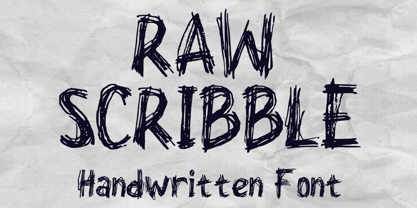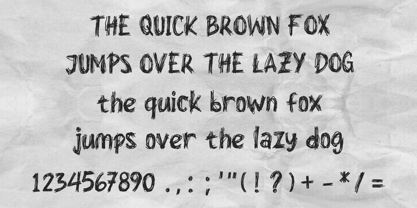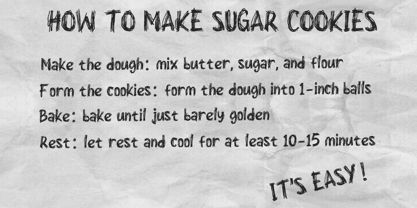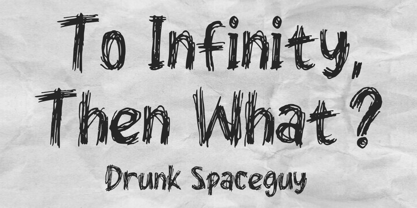
Raw Scribble
by Mvmet
The Raw Scribble Font Family was designed by Gabriel Valentinus and published by Mvmet. Raw Scribble contains 1 styles.
Introducing Raw Scribble, a distinctly organic handwritten font characterized by its spontaneous scribbled texture. Elevate your design portfolio with Raw Scribble's unique style, offering exceptional versatility for a wide range of creative applications. Whether you're crafting eye-catching decal designs, standout t-shirt graphics, memorable logos, captivating book or magazine covers, dynamic comics, or charming cartoon imagery, Raw Scribble adds an extraordinary personality to your projects. Both iterable and individualistic, Raw Scribble enhances your creative expressions with a distinctive edge.
Designers: Gabriel Valentinus
Publisher: Mvmet
Foundry: Mvmet
Design Owner: Mvmet
Mvmet is an Indonesia-based font studio which began making fonts in early 2020. Mvmet strives to make fonts fun and accessible for both the average computer user and professional designers, with original experimental fonts and affordable trend-setting commercial fonts. Mvmet also creates custom fonts for companies who want exclusive rights and a specific design for a typeface. Clients who have used Mvmet’s custom font services include some company in Indonesia and abroad.